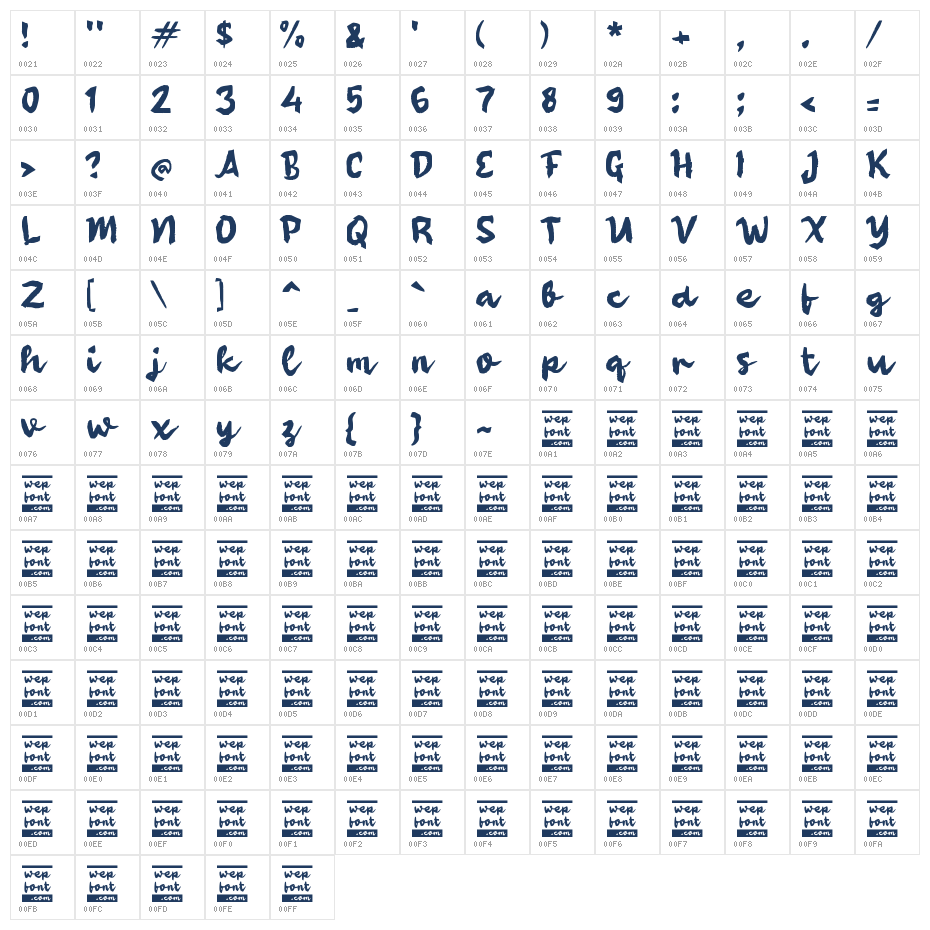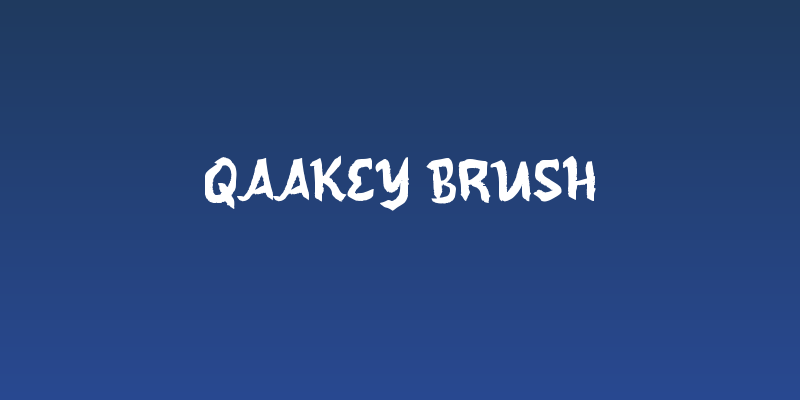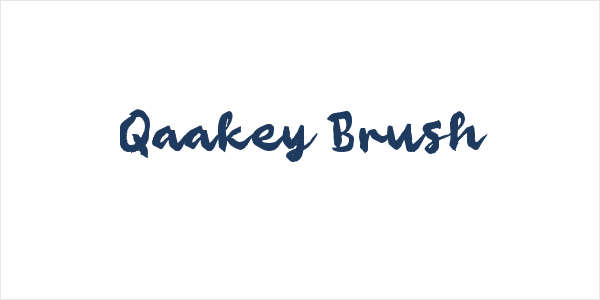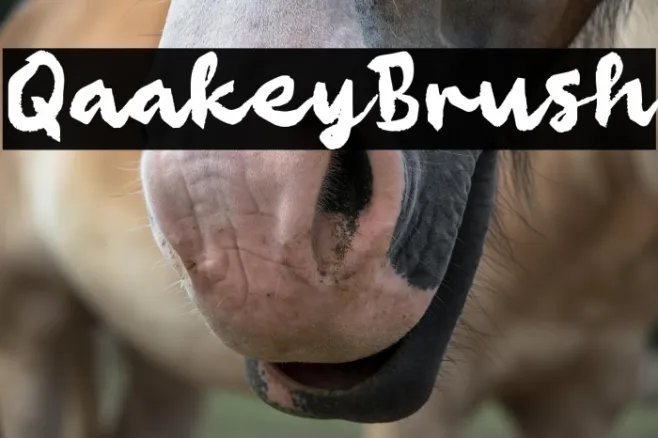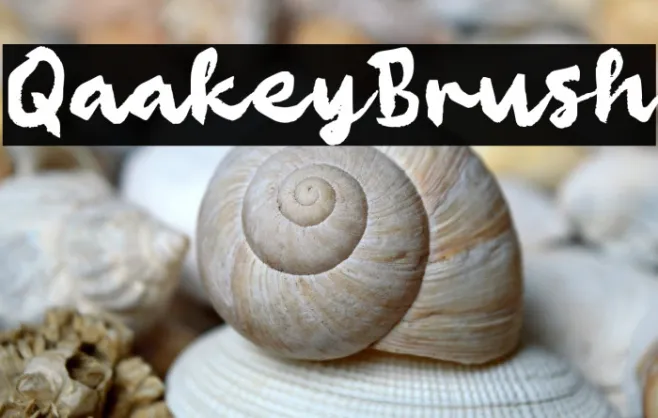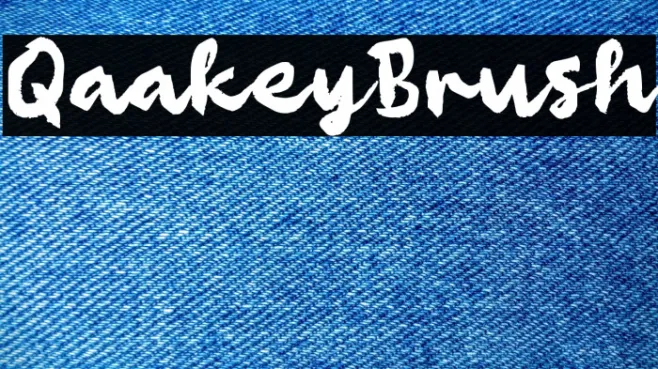
Qaakey Brush Font
Qaakey Brush Description
A bold, playful, brushstroke-style font with irregular, hand-drawn characteristics.
| Overall Style | Casual, Handwritten, Playful |
| Use Case | Headlines, Posters, Logos, Creative projects |